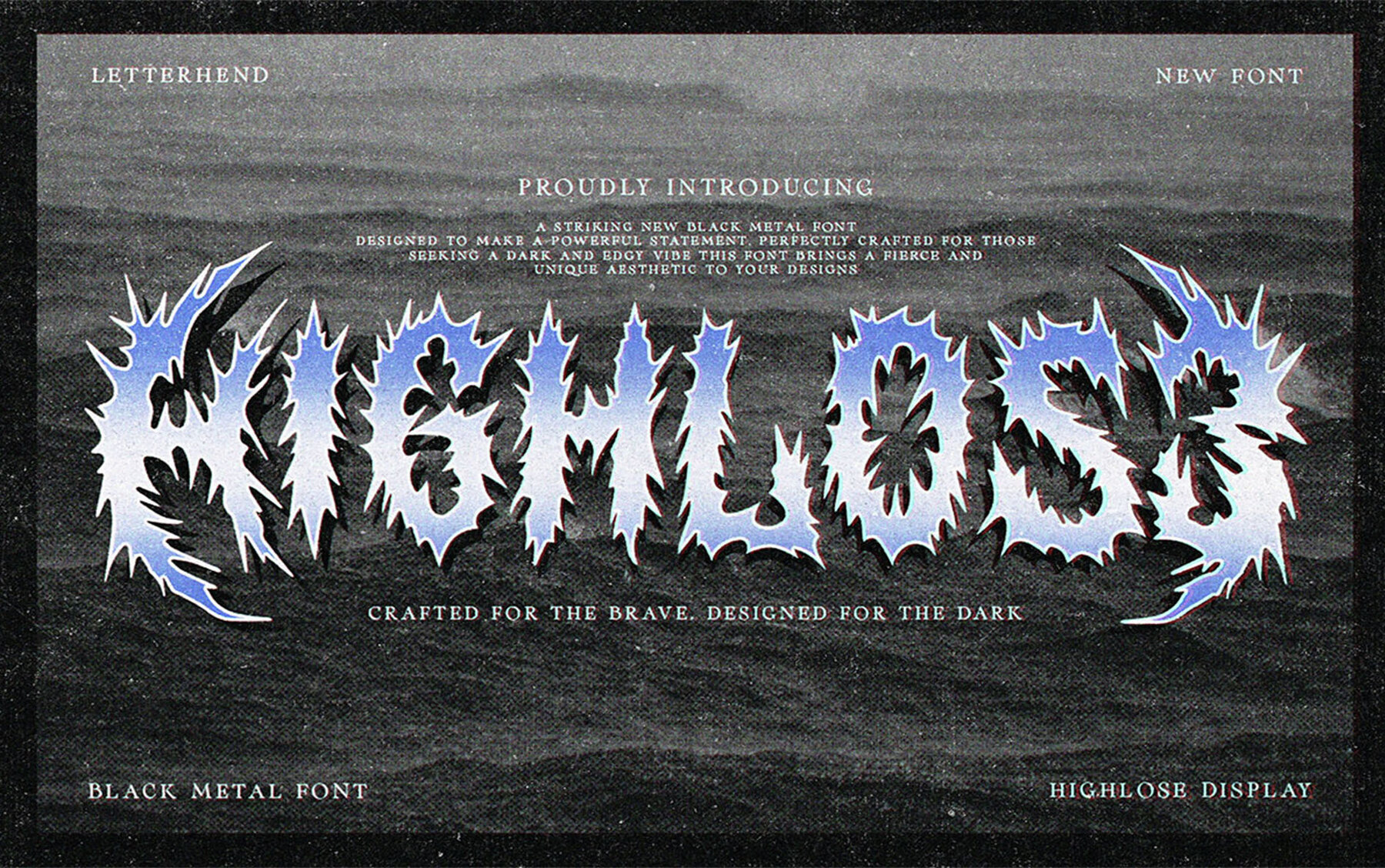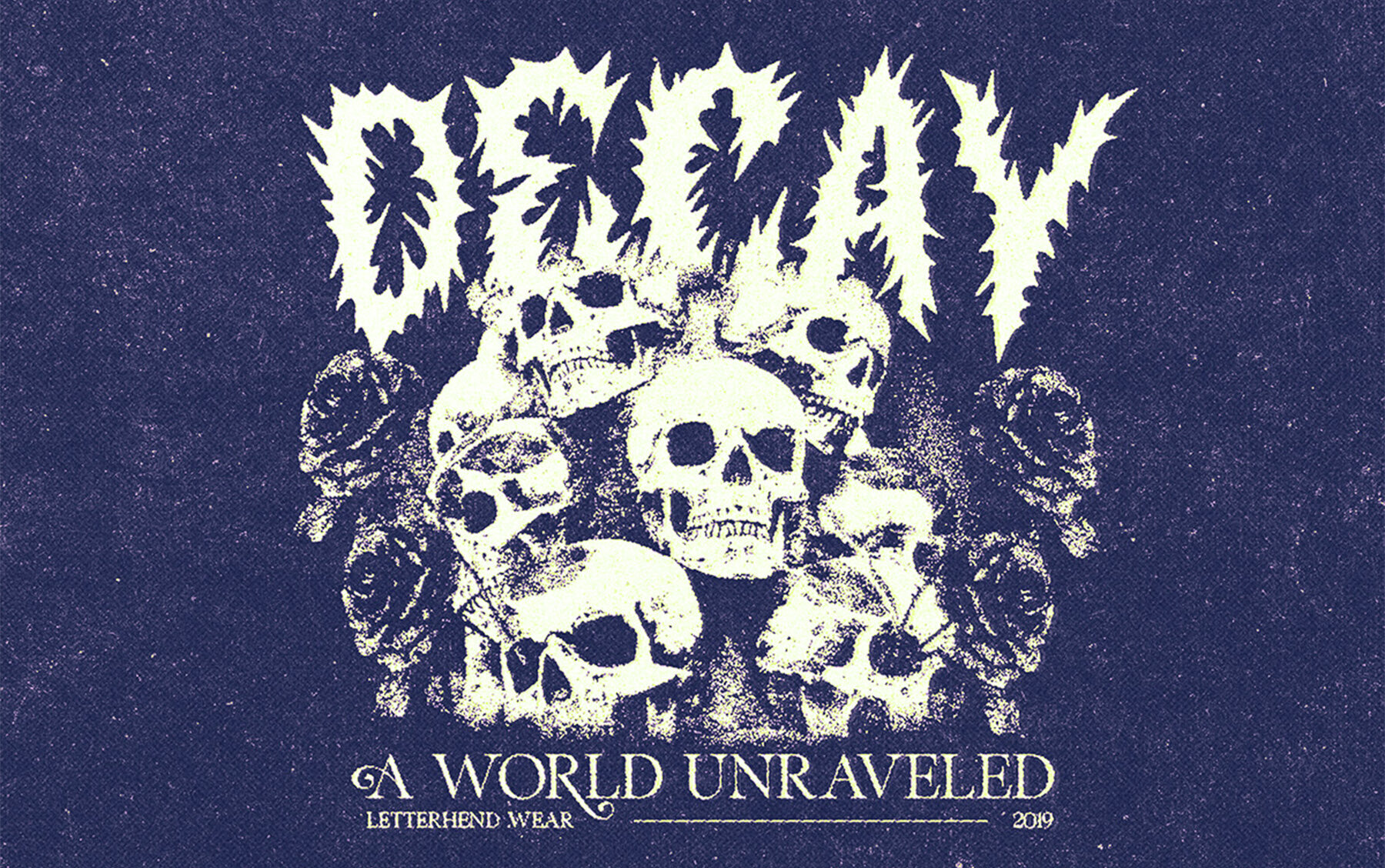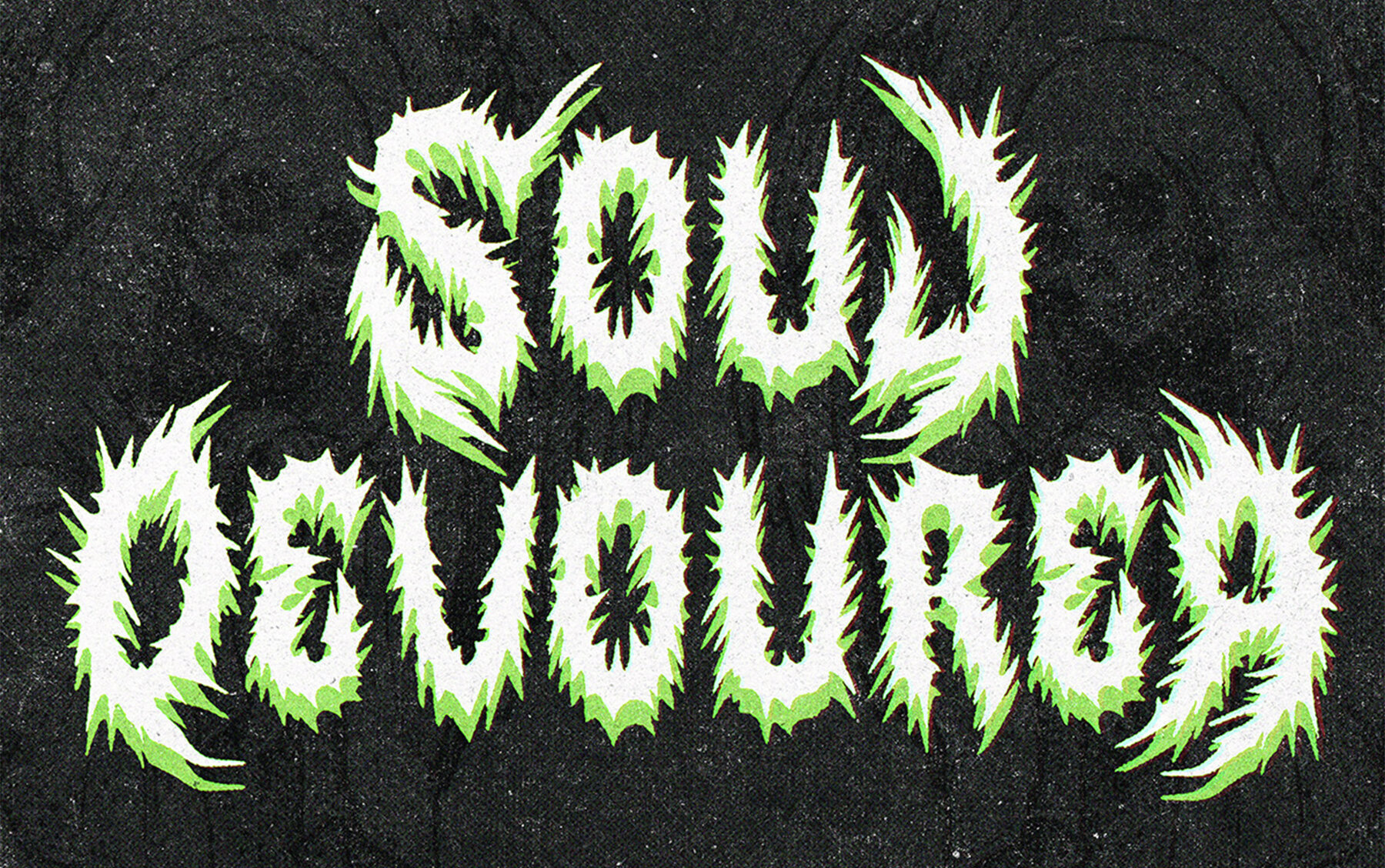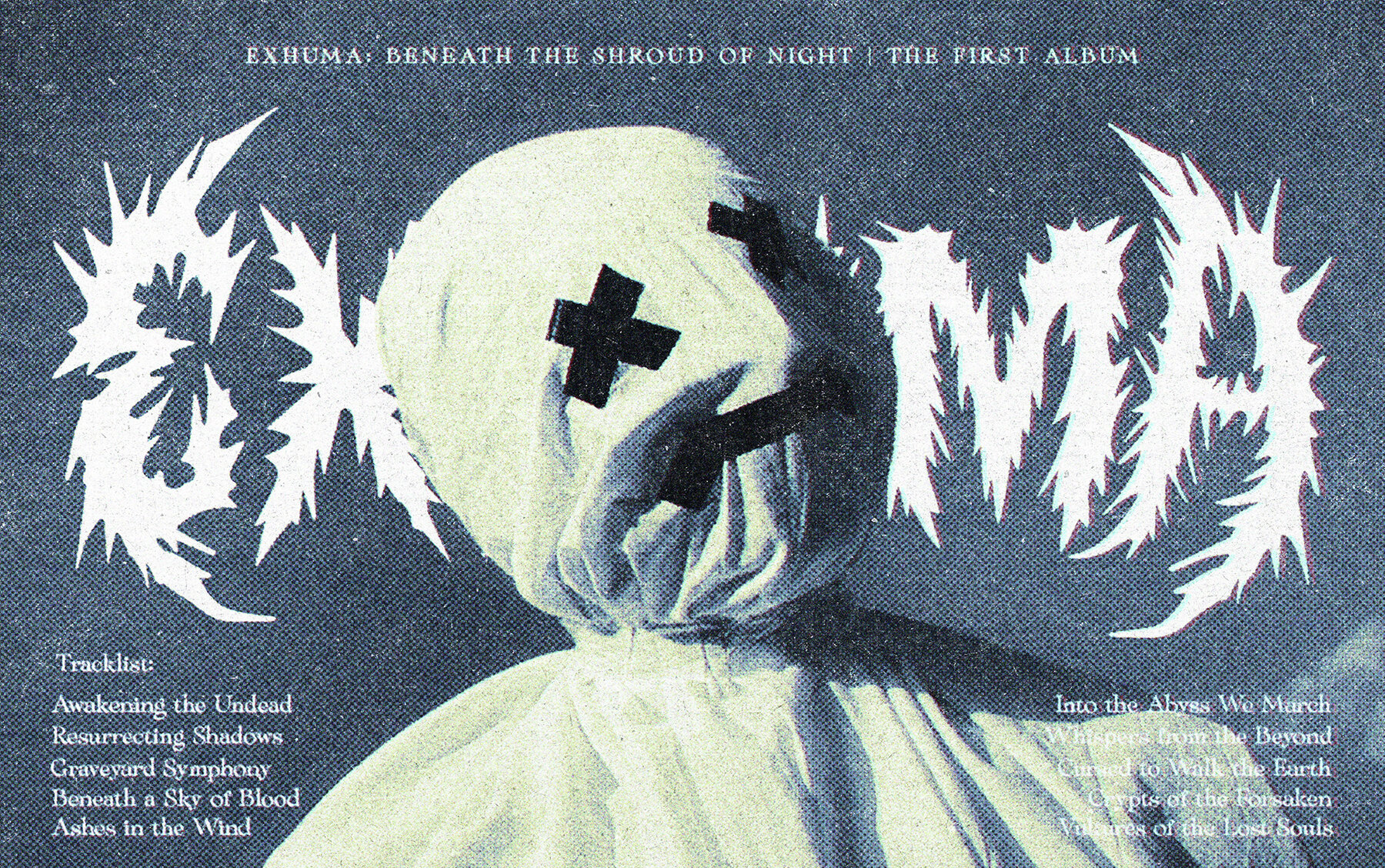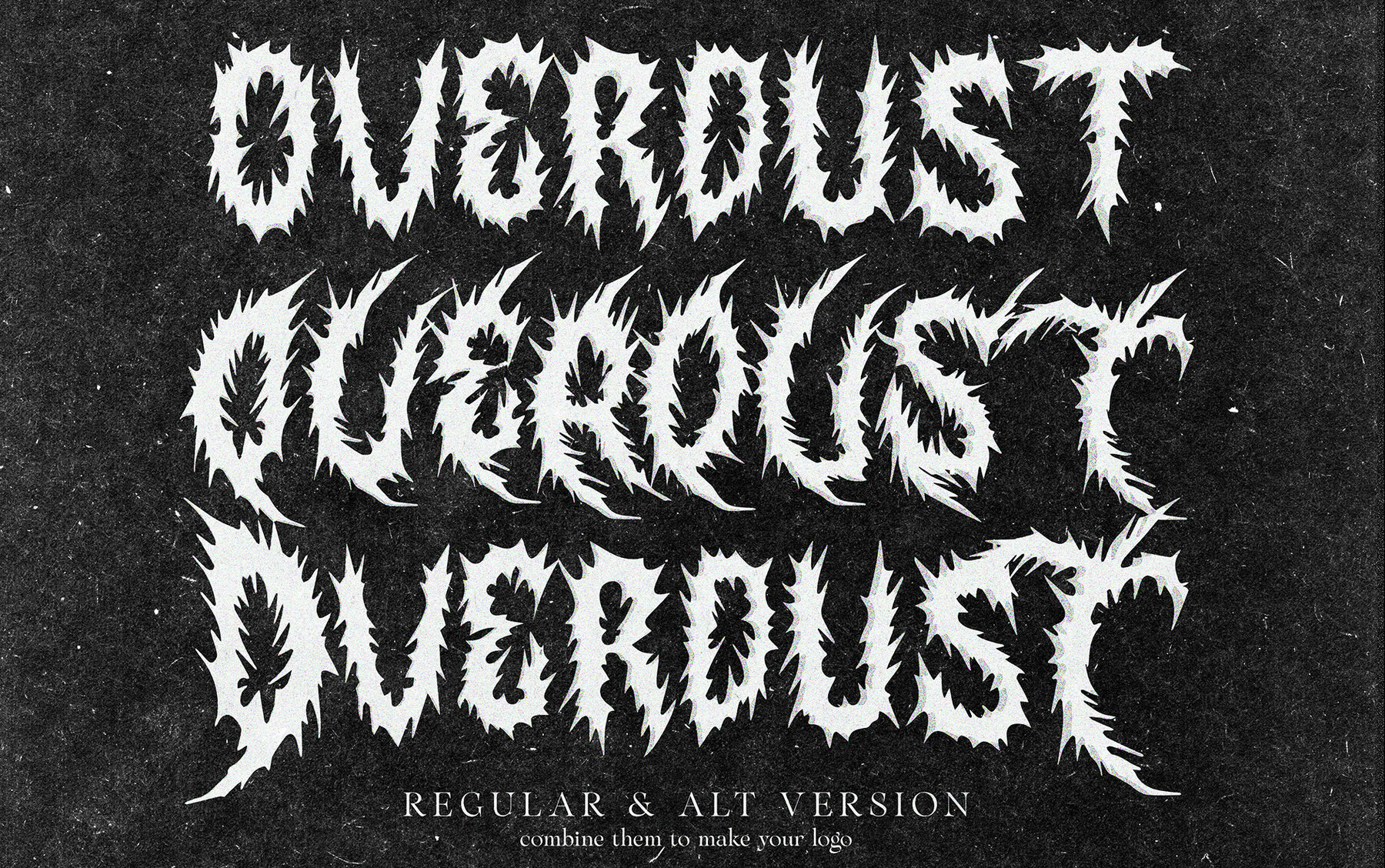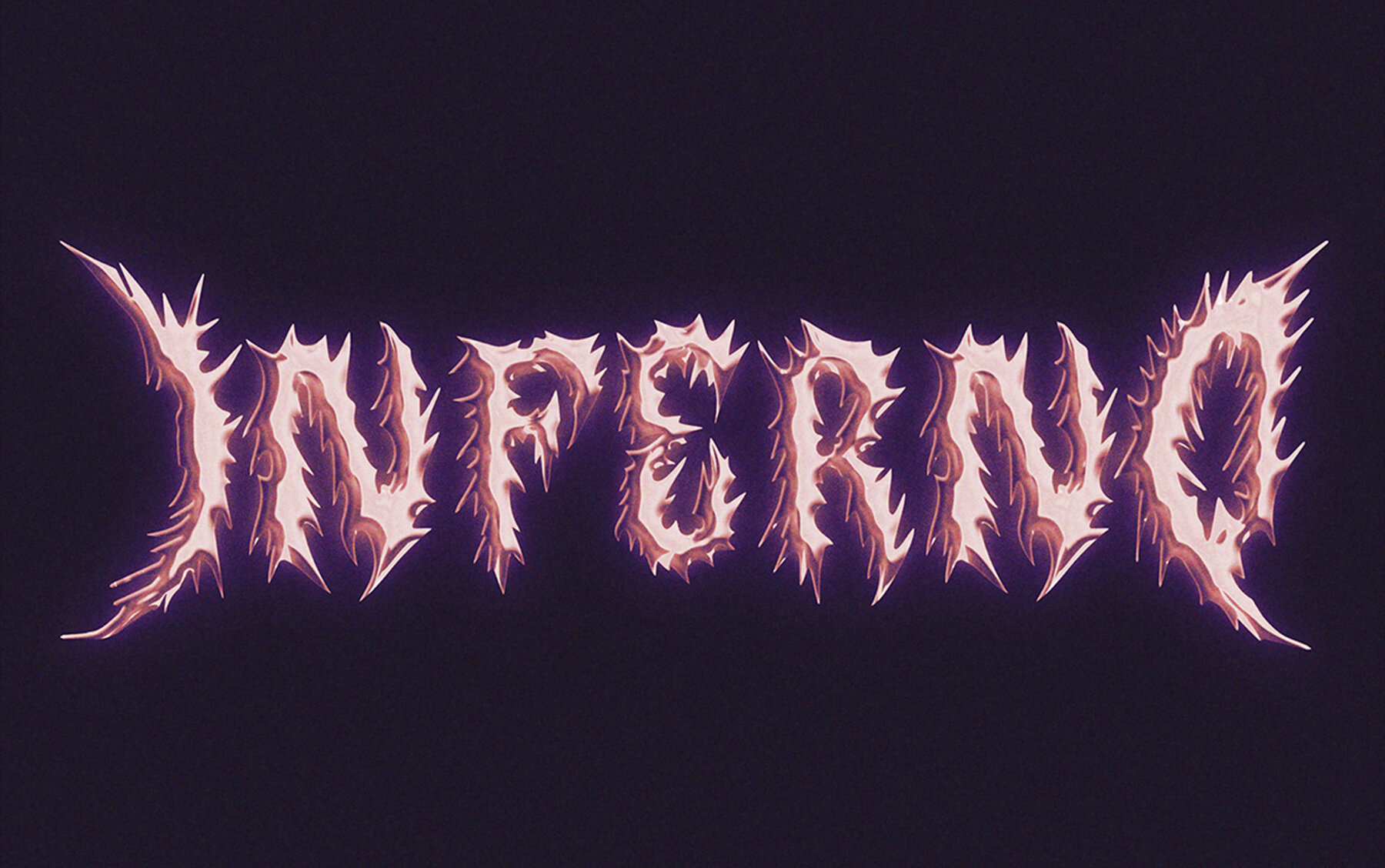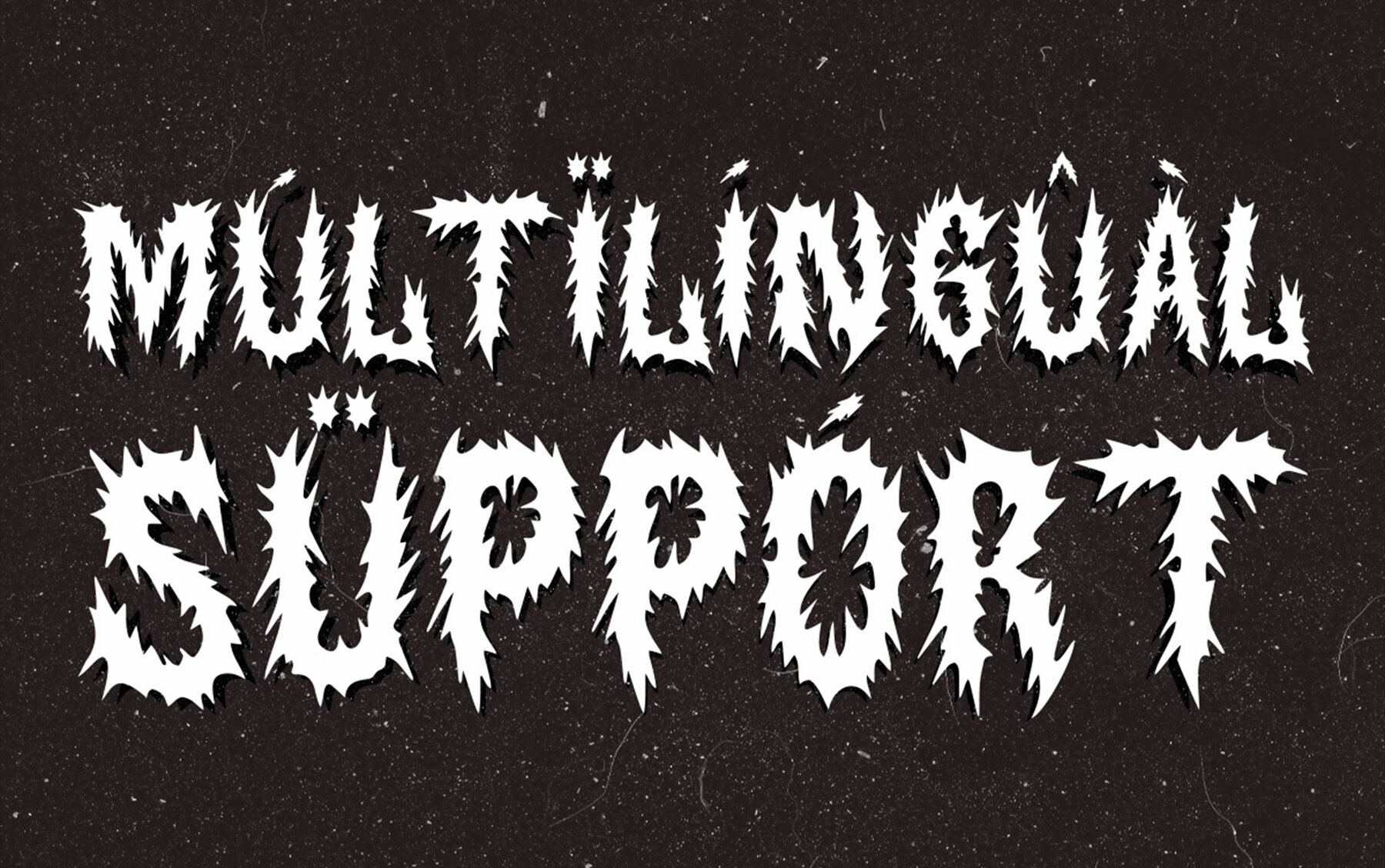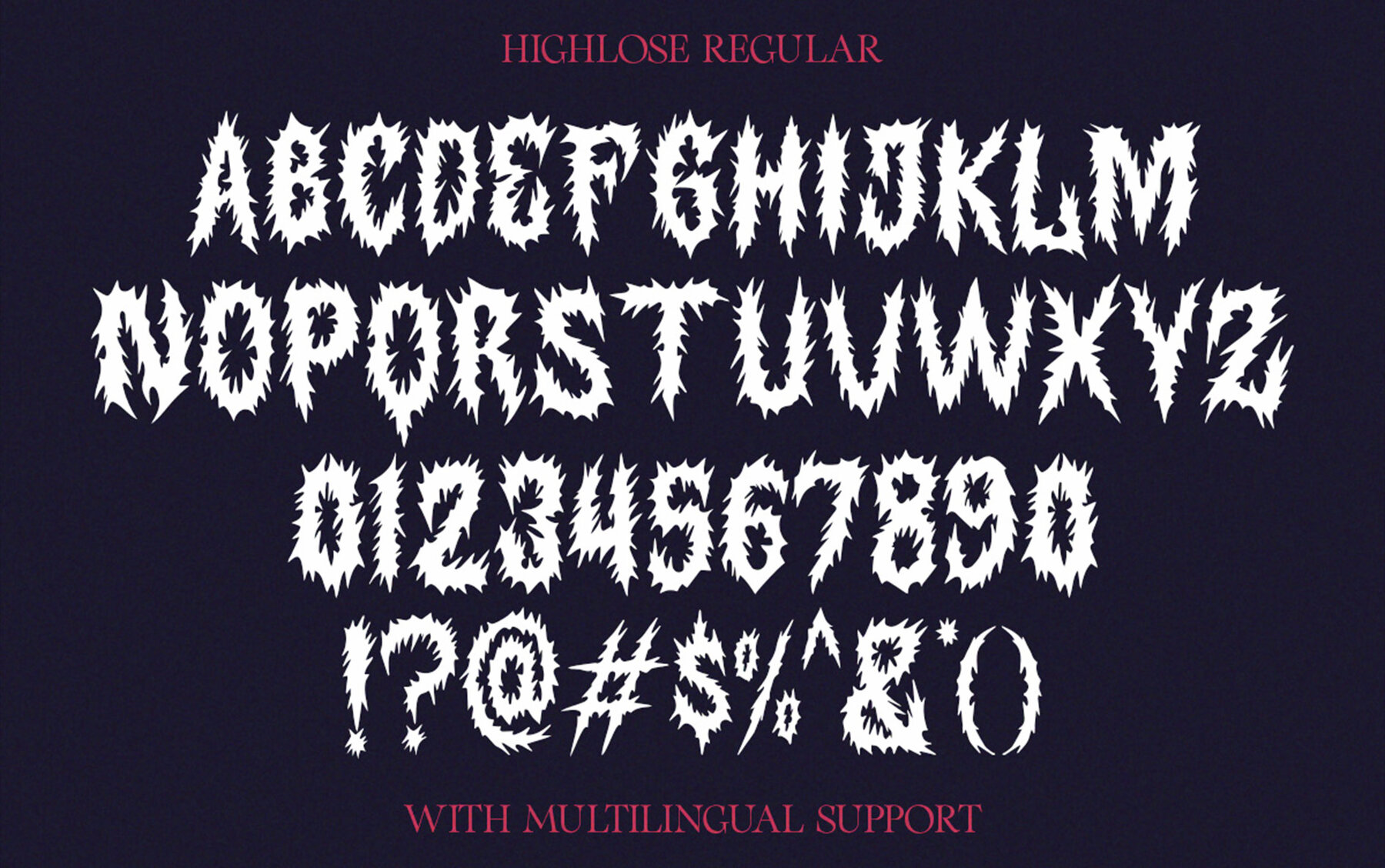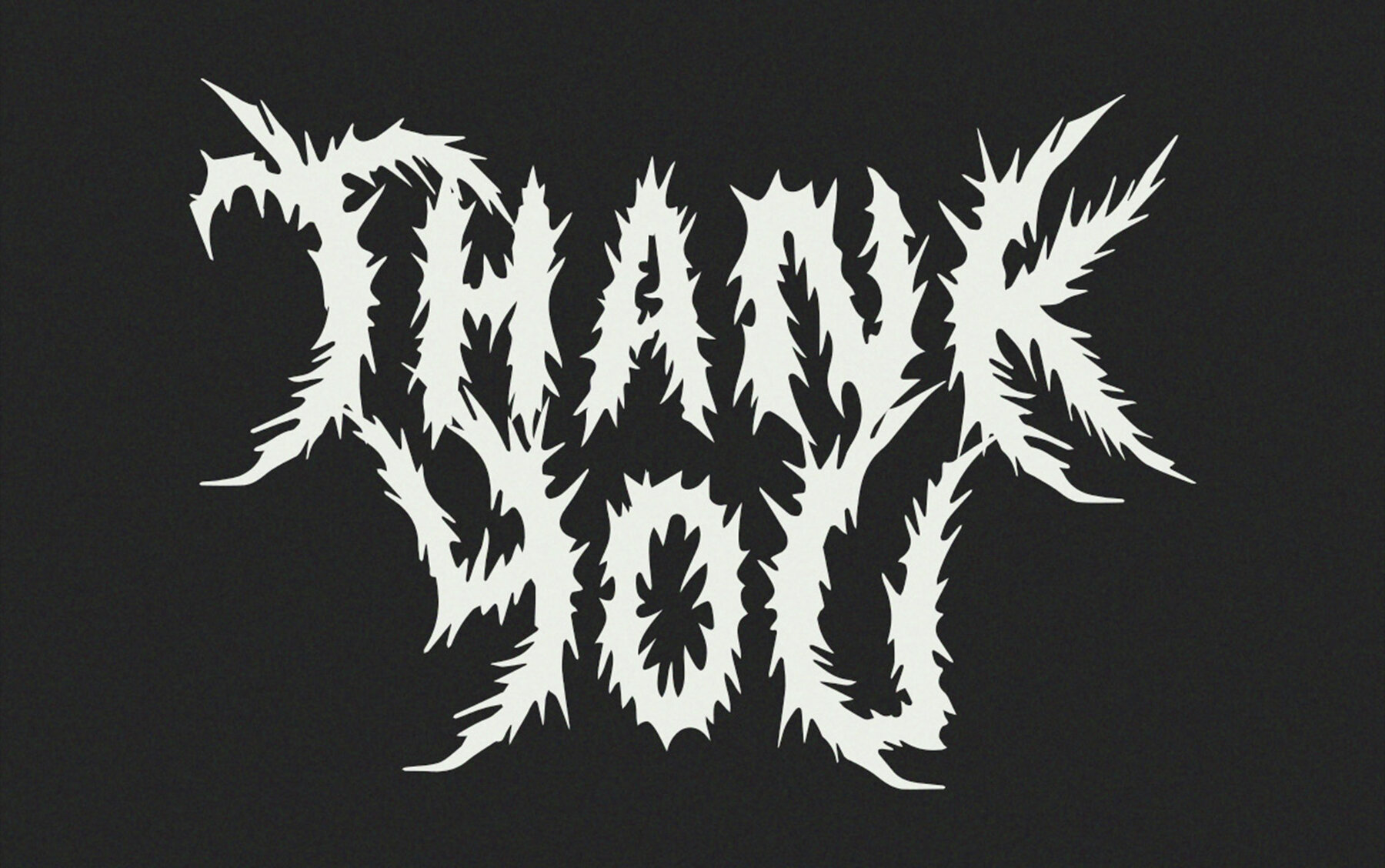
Highlose Font
Unleash the power of Highlose, a bold black metal font that screams intensity and rebellion. Its sharp, jagged edges and electrifying style are inspired by the raw energy of metal music and underground aesthetics. Perfect for creating album covers, band merchandise, event posters, or branding that demands attention, Highlose embodies a fierce, edgy, and unapologetically dark vibe. Whether you're designing for music, fashion, or alternative art scenes, this font delivers a statement that's impossible to ignore. Features : We highly recommend using a program that supports OpenType features and Glyphs panels like many of Adobe apps and Corel Draw, so you can see and access all Glyph variations.